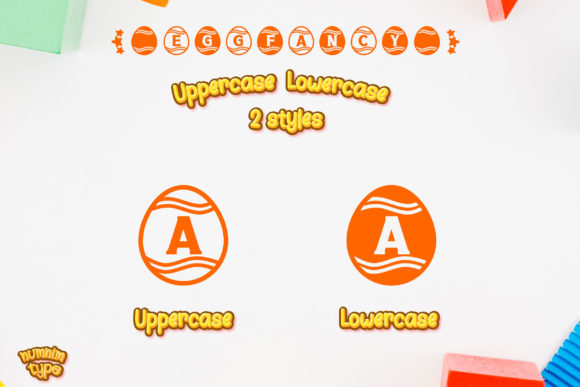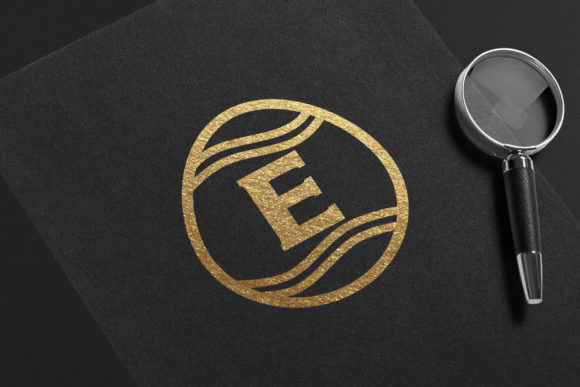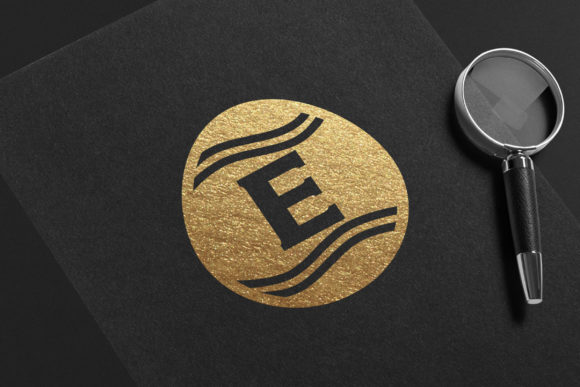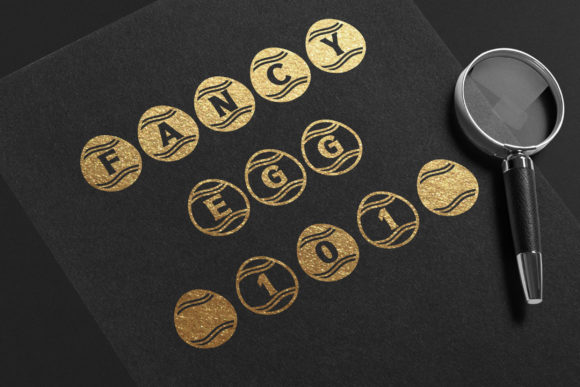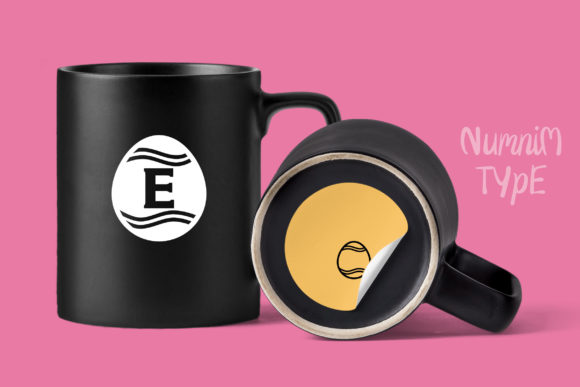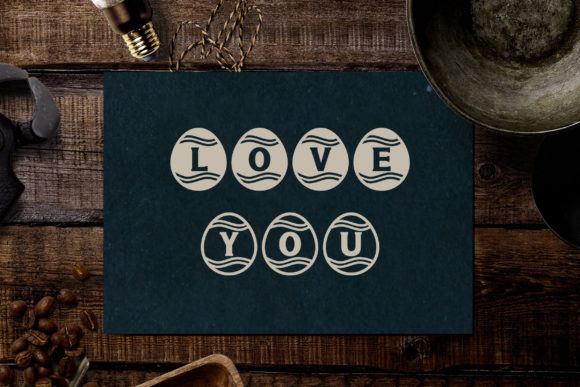
The Easter Egg Fancy Font: A Fun and Playful Addition to Your Design Arsenal
I’ll never forget the time I was working on a project for a client’s Easter-themed event, and I just couldn’t find the right font to match the playful and festive vibe they were going for. I scoured the internet, tried out dozens of fonts, but nothing seemed quite right. That was until I stumbled upon the Easter Egg Fancy font. Its unique and decorative characters immediately caught my eye, and I knew I had found the perfect fit.
I’ve had the pleasure of working with the Easter Egg Fancy font for a while now, and here’s my honest review:
- ✨ Unique and playful characters: The Easter Egg Fancy font has a super fun and whimsical feel to it, making it perfect for Easter-themed designs, stickers, mugs, t-shirts, and more!
- ✅ High-quality design: The font is beautifully crafted, with crisp and clean lines that make it perfect for both digital and print designs.
As for quirks, I’d say:
- 🤔 Some characters may require adjusting: Depending on the design, some characters might require adjusting to get the perfect fit. But trust me, it’s worth it!
- ⚠️ Not suitable for body text: This font is best used for headlines, titles, or decorative text. It’s not recommended for body text due to its playful and decorative nature.
The Easter Egg Fancy font was created with the intention of capturing the playful and festive spirit of Easter. The designer wanted to create a font that would be perfect for Easter-themed designs, from stickers and mugs to event invitations and cards. With its unique and decorative characters, Easter Egg Fancy is sure to bring a smile to anyone’s face.
Q: What is the Easter Egg Fancy font best used for?
A: The Easter Egg Fancy font is best used for Easter-themed designs, such as stickers, mugs, t-shirts, event invitations, and cards.
Q: Is the Easter Egg Fancy font suitable for body text?
A: No, the Easter Egg Fancy font is best used for headlines, titles, or decorative text. It’s not recommended for body text due to its playful and decorative nature.